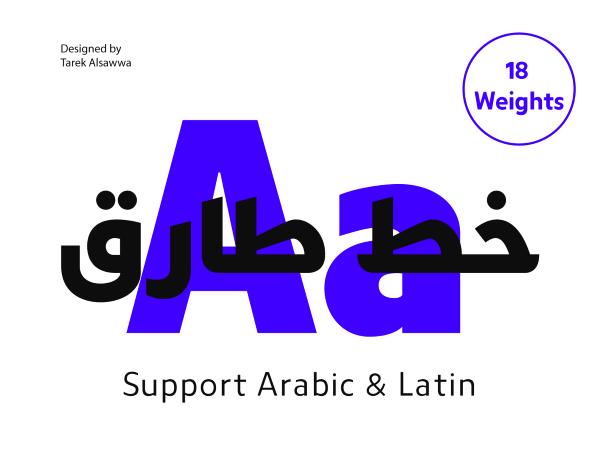
Tarek Font
Tarek by Tarek Sawwa and Haider Mami of TS Fonts is a modern Kufic typeface that brings the structural precision of classical Arabic calligraphic tradition into a fully contemporary typographic system from large-scale corporate identities and news channel logotypes to electronic newspapers, editorial layout, and advertising campaigns demanding typographic consistency across both Arabic and Latin scripts. A free trial weight is available for personal use.